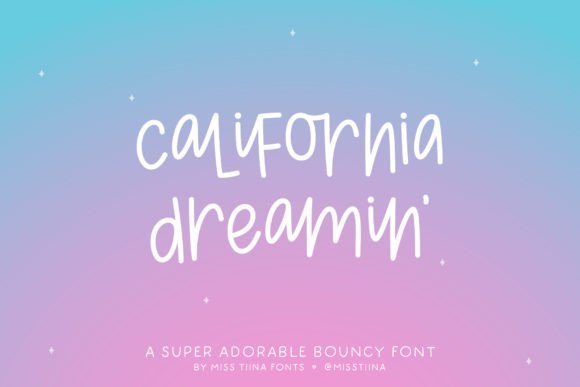
Where Creativity Meets Sunshine
You know that moment when inspiration strikes, and you’re bursting with ideas to create something truly special? For many of us, that spark often feels like a breath of fresh air, reminiscent of the carefree vibes of the Golden State. It’s a feeling that California Dreamin’ Font captures perfectly – with its playful, whimsical charm that’s sure to transport you to a world of artistic expression.
Designed to bring a touch of California’s laid-back spirit to your work, California Dreamin’ Font is the perfect choice for designers looking to inject a dose of creativity into their projects. With its dynamic, bouncy letterforms and an abundance of alternate connected characters, this font is a valuable asset for any designer seeking to add a unique touch to their designs.
California Dreamin’ Font Key Features
- Font Family: California Dreamin’ is a sans-serif font family designed by Emil Karl Bertell.
- Unique Characteristics: California Dreamin’ features a unique blend of modern and vintage elements, with subtle rounded edges and geometric shapes.
California Dreamin’ Font Review
Overall, I have mixed feelings about the “California Dreamin’ Font”. While it has some great qualities, it also has some limitations that might make it less desirable for certain projects.
- The font’s carefree and laid-back vibe is perfect for projects that require a relaxed, West Coast feel.
- The font’s curves and rounded edges give it a soft, approachable appearance that’s easy on the eyes.
- The font’s legibility is excellent, making it suitable for body text and headlines alike.
Limitsations: ⚠️
- The font’s lack of bold weights makes it less versatile for projects that require emphasis or hierarchy.
- The font’s rounded edges can sometimes make it difficult to read at small sizes or in low-contrast environments.
- The font’s feel is somewhat generic, which might make it less distinctive in crowded design spaces.
Overall, the “California Dreamin’ Font” is a solid choice for projects that require a laid-back, West Coast feel. However, its limitations make it less suitable for projects that require boldness or hierarchy. With some careful planning and adjustment, this font can be a great addition to your design toolkit.
The California Dreamin’ Font is perfect for:
1. Creating a laid-back, West Coast vibe for your branding or marketing materials.
2. Adding a touch of nostalgia to your designs.
3. Creating eye-catching headlines and titles.
For the best results, use the California Dreamin’ Font in conjunction with other fonts that complement its unique style and feel.
Alternatives to California Dreamin’ Font
Great Vibes Font is a fun, handwritten font that captures the essence of a carefree, beachy vibe. It’s perfect for use in summer-themed projects, advertisements, or social media graphics. Great Vibes Font is more playful and laid-back than California Dreamin’ Font, making it ideal for creating a relaxed atmosphere.
Carolyna Pro Font is a modern, elegant script font that exudes sophistication and style. It’s suitable for use in high-end branding, luxury packaging, or fine art projects. Compared to California Dreamin’ Font, Carolyna Pro Font is more refined and polished, making it perfect for creating a high-end look.
Crimson Text Font is a beautiful, serif font that’s perfect for use in long blocks of text, such as novels, articles, or blog posts. It’s more formal and traditional than California Dreamin’ Font, making it ideal for creating a classic, timeless look. Crimson Text Font is also highly legible, making it perfect for use in body text.